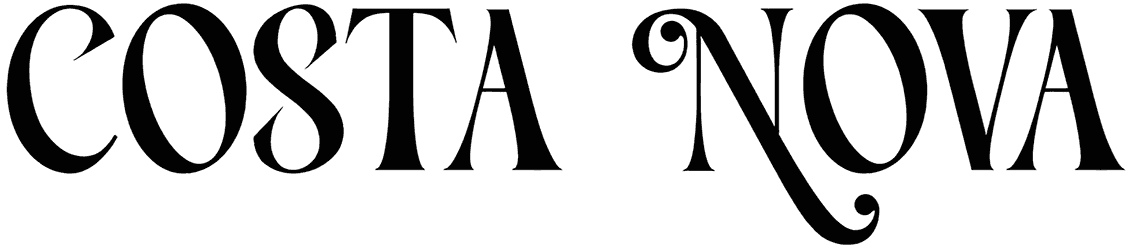
Costa Nova Font
It’s possible that a client who turns down your initial design won’t contact you again. Costa Nova is the way to go if you want to make a positive first impression with a simple serif font. The graceful curves of this fashion font could be a nice finishing touch for your digital creations.